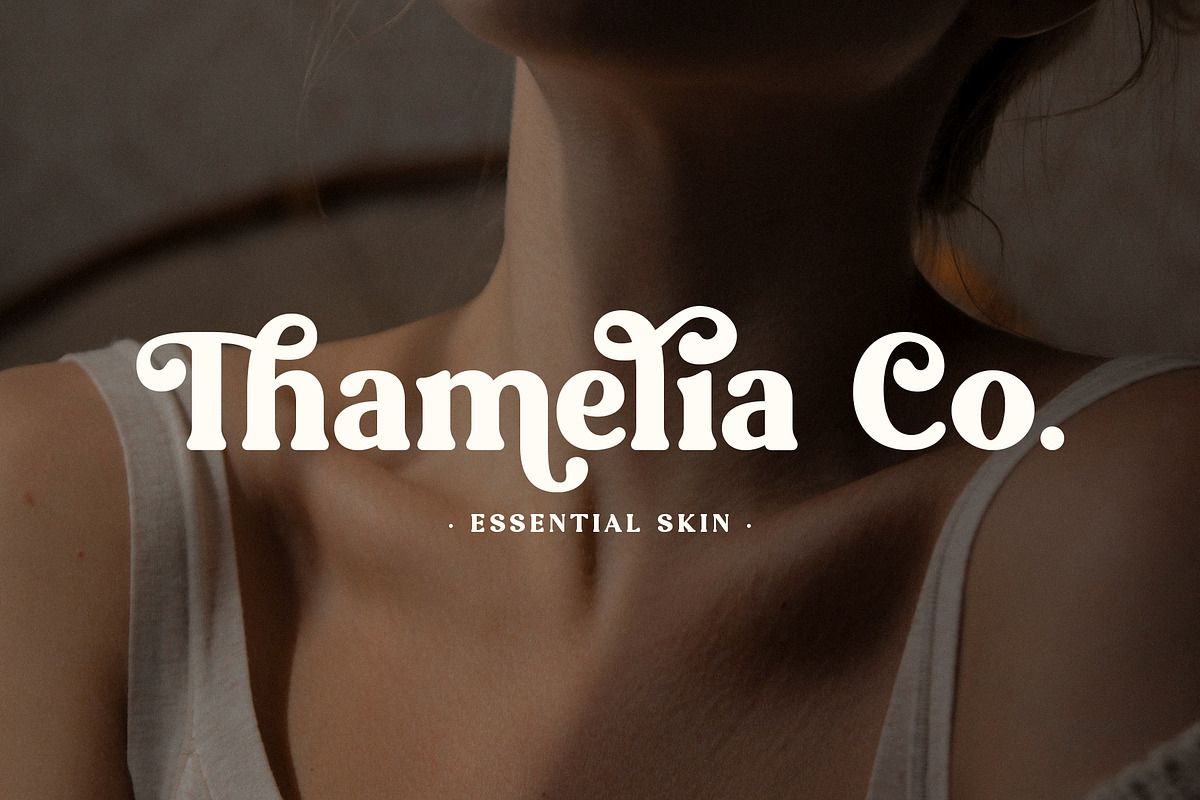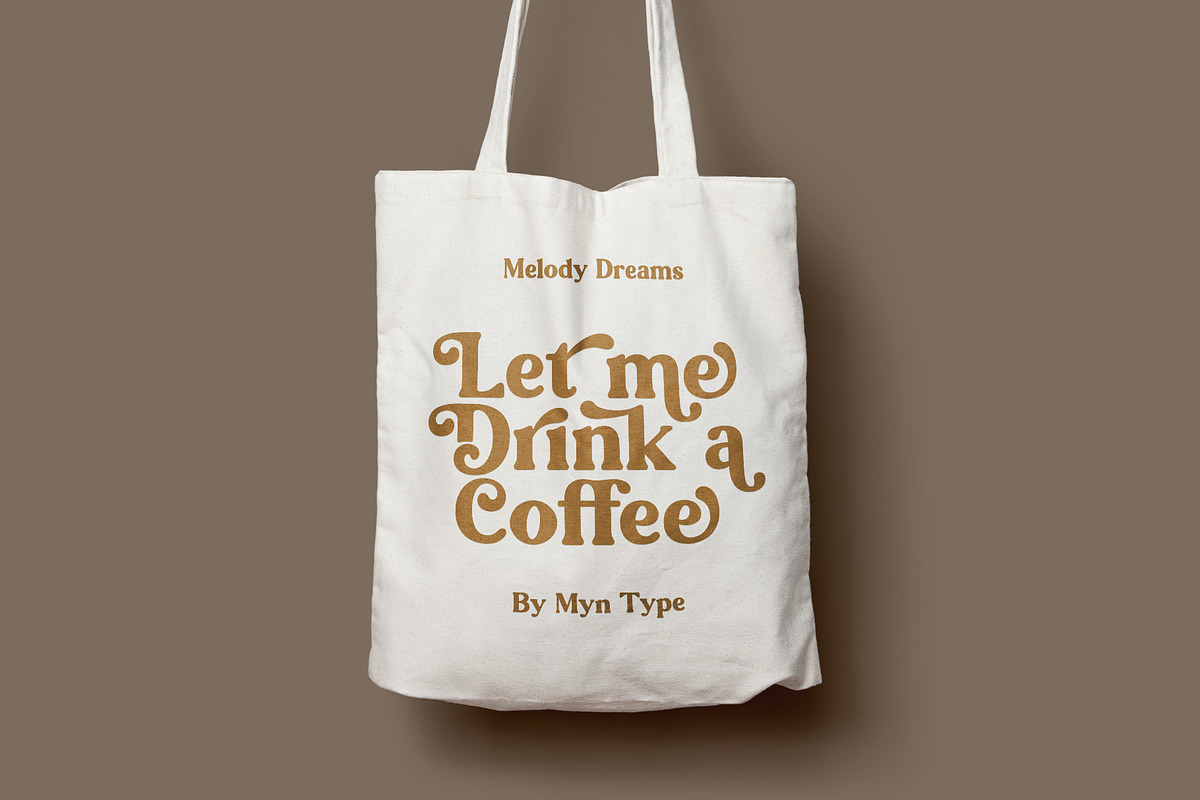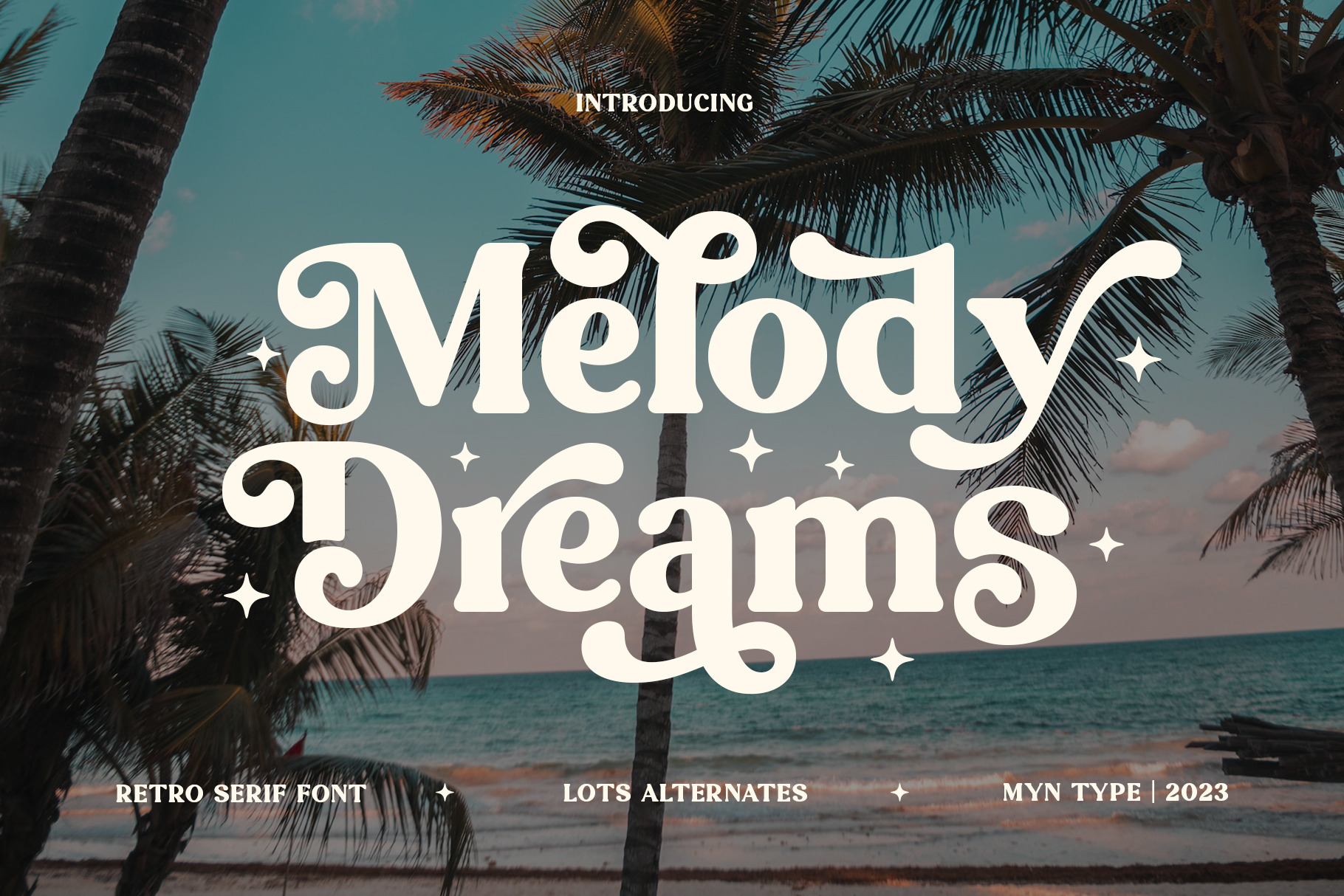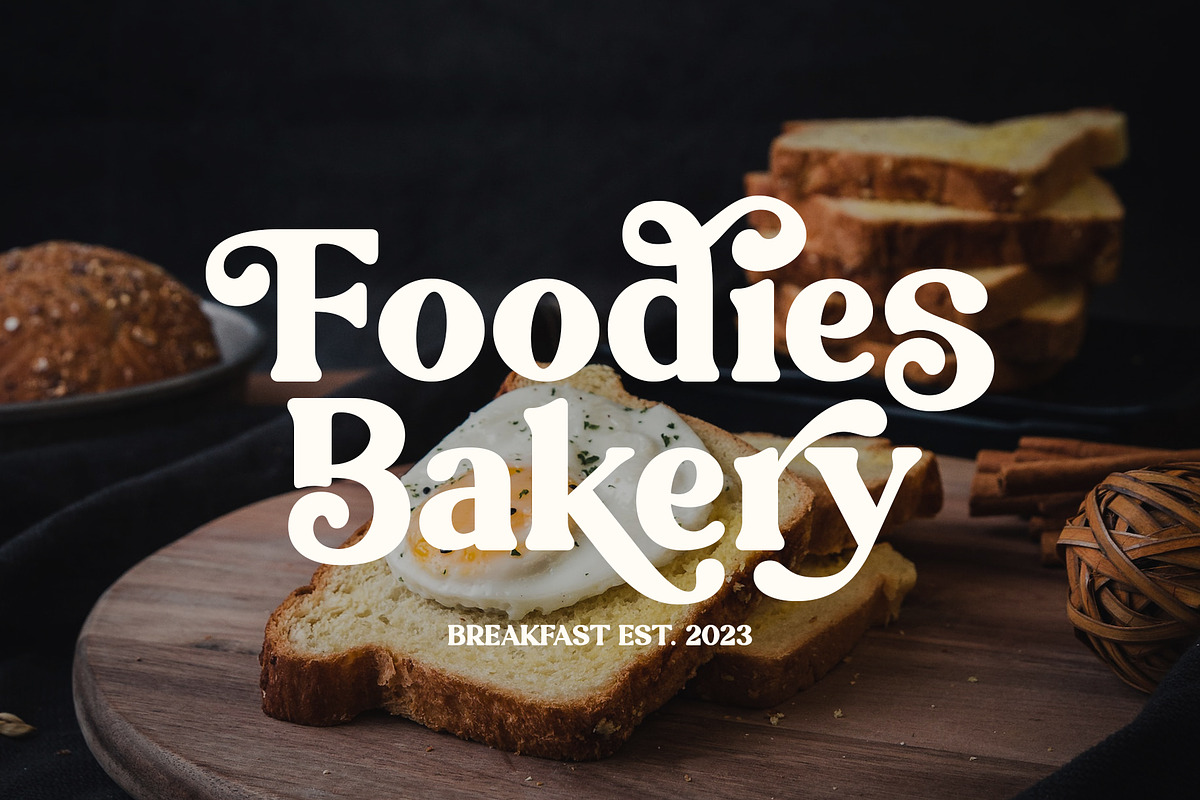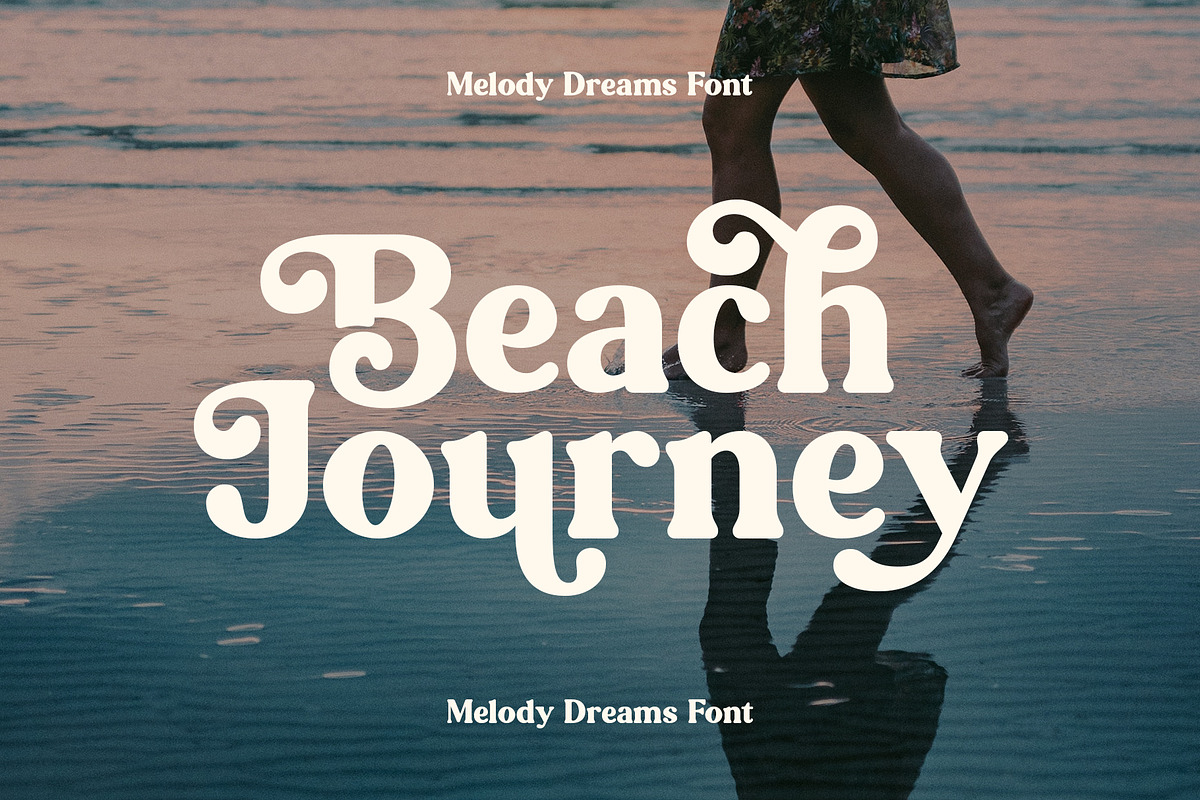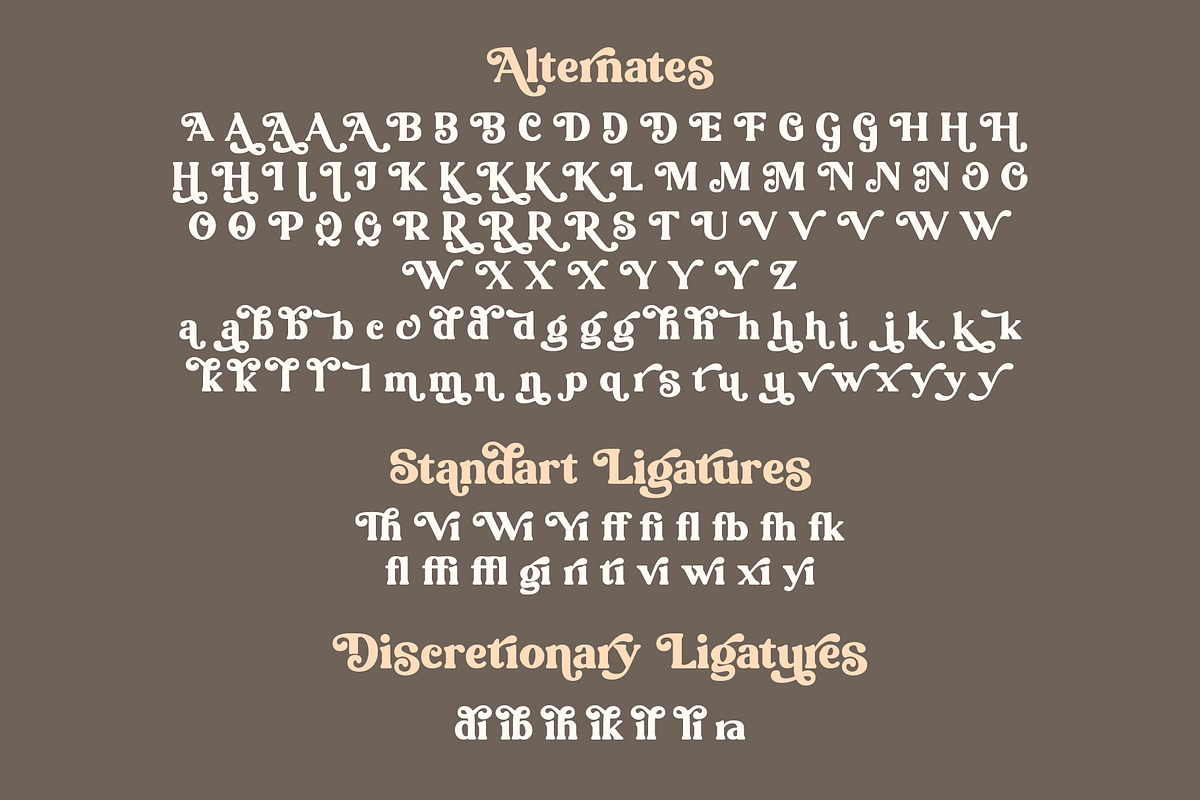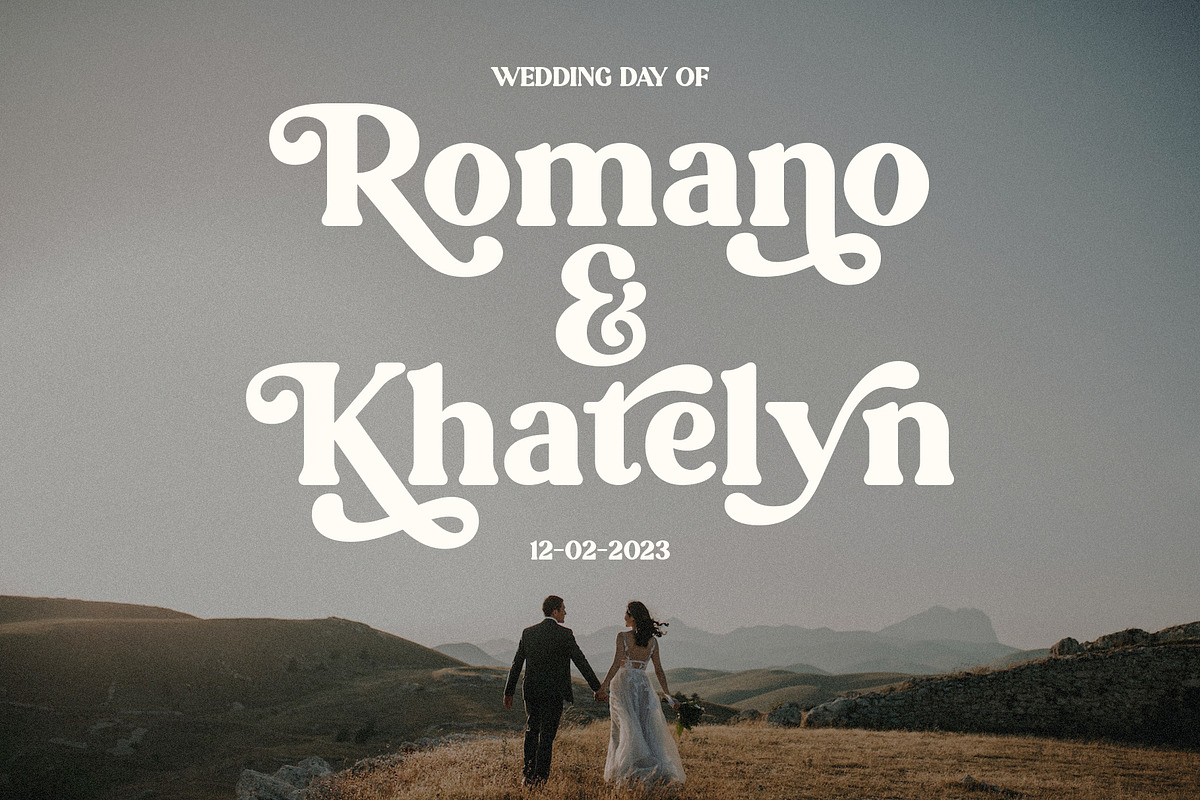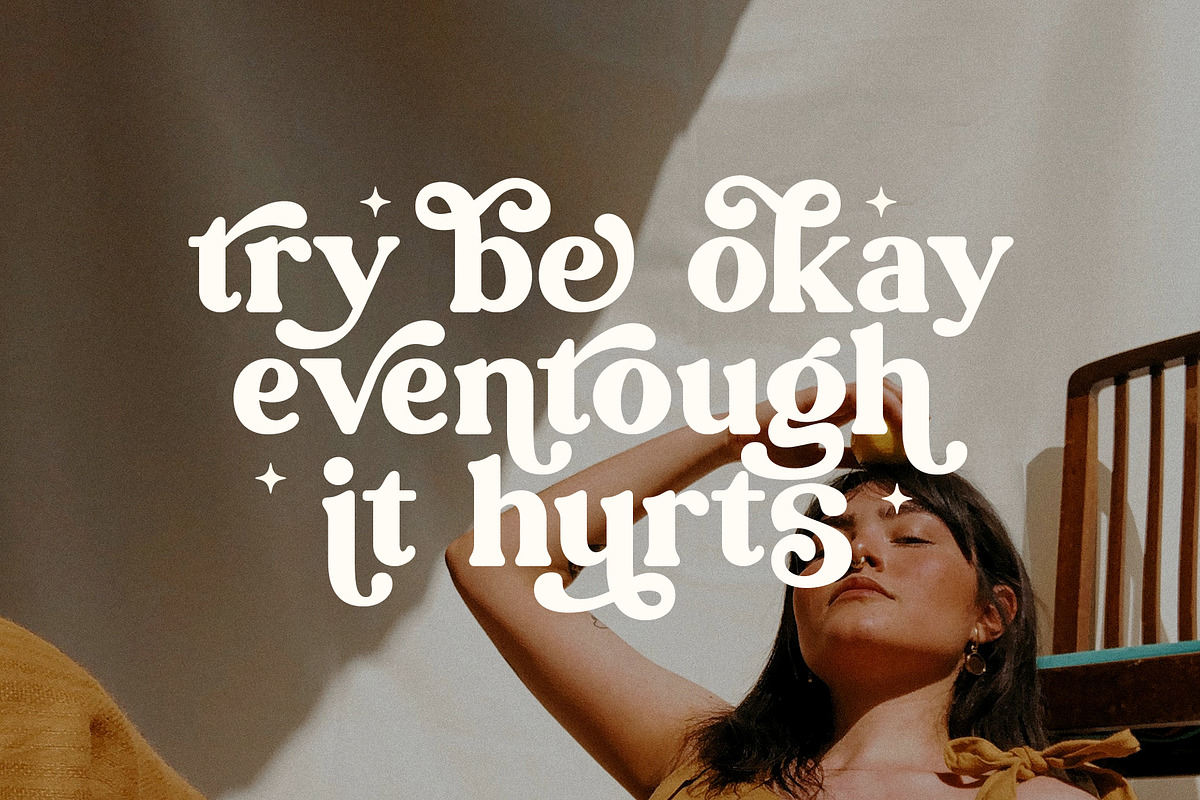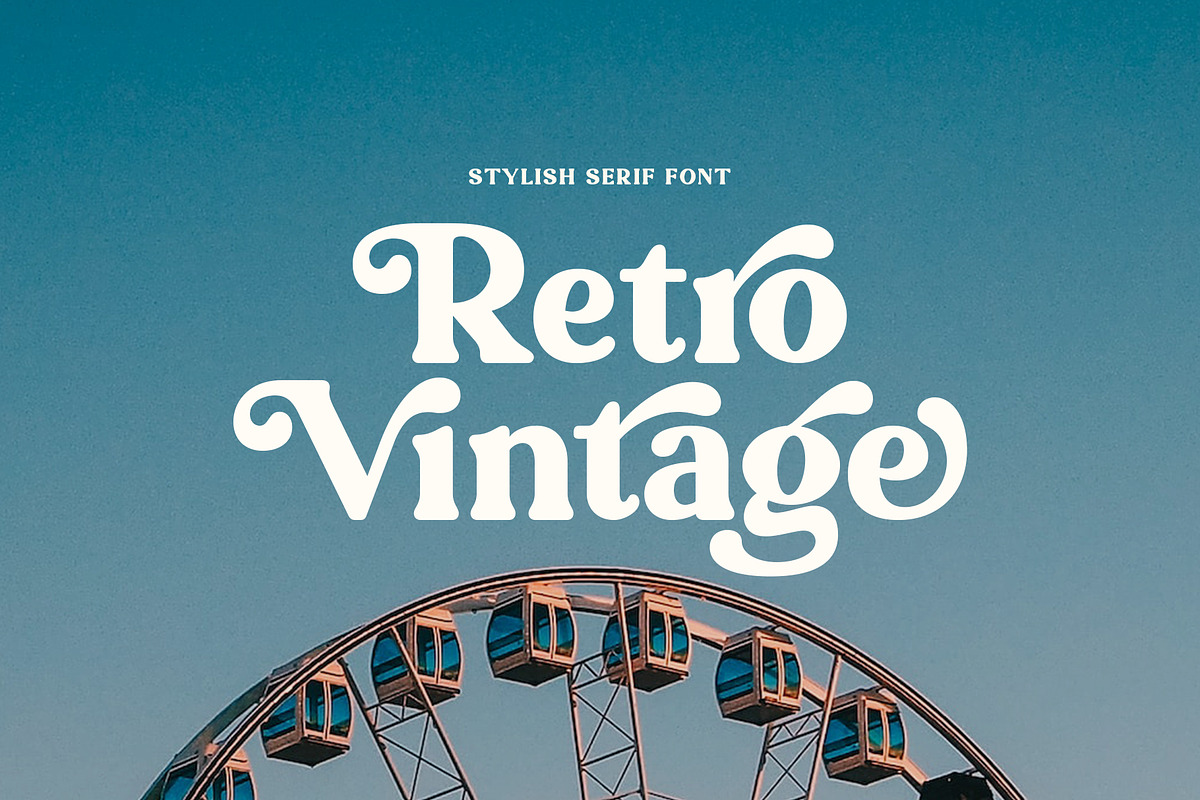
Melody Dreams - Stylish Serif Font
Melody Dreams,
An retro serif font that draws inspiration from the old eras 70's typography. This font is characterized by decorative strokes or tails that extend from the ends of letters.